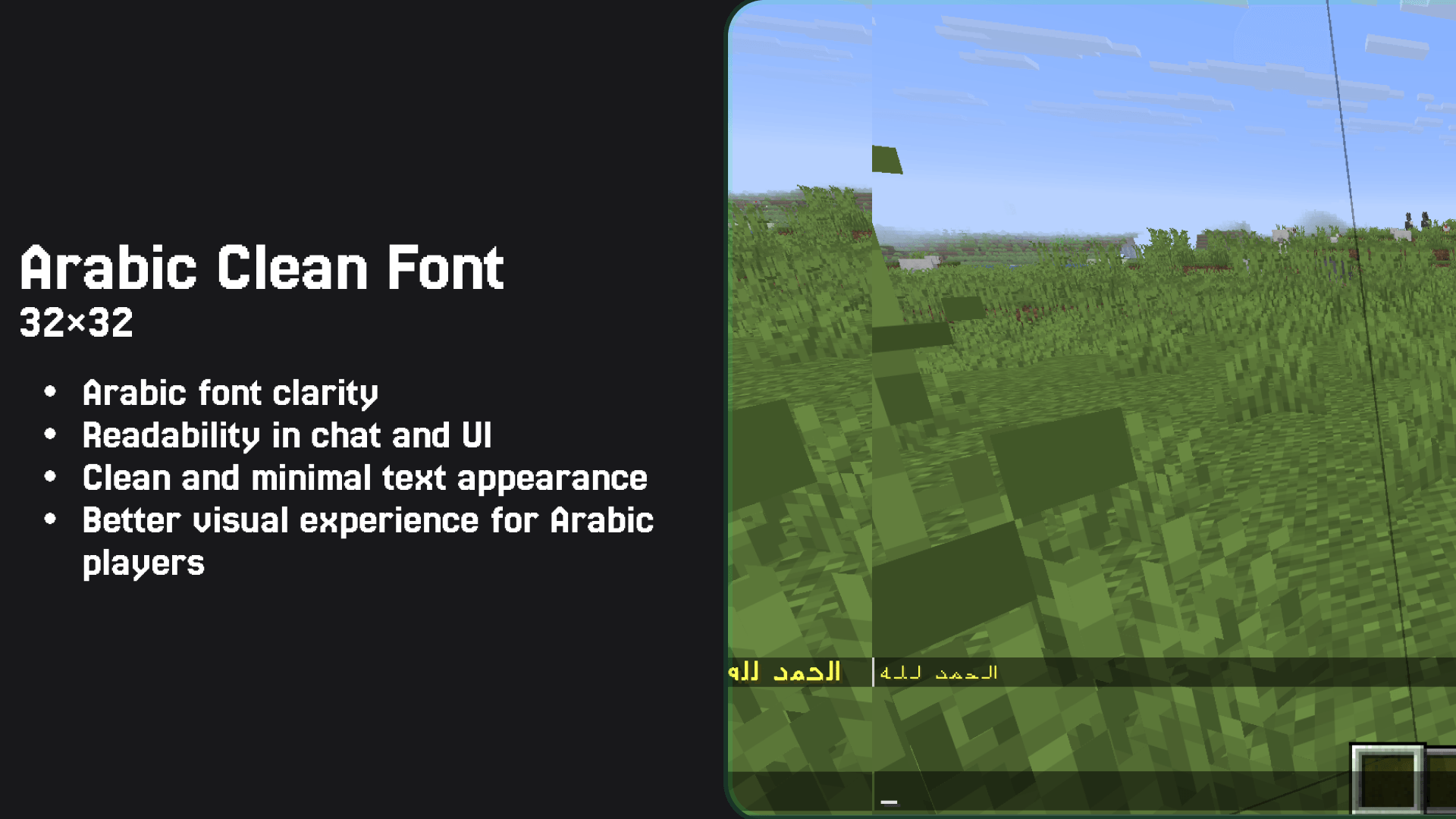
Arabic Clean Font (32x)
A clean and readable Arabic font for Minecraft, designed to improve clarity and provide a smooth, distraction-free experience.